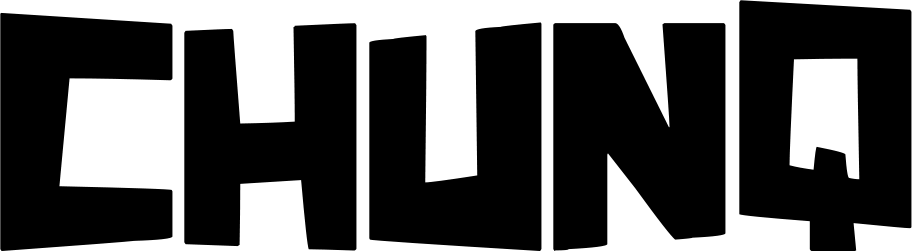
Chunq Font
Chunq is a cartoon font with bold and playful characters. It will make your writing more friendly and cool and make a more kid-friendly text. You can use it for any branding logo, product packaging, comic books, cartoon posters, informal texts, movie titles, and sports headlines. It is an all-caps title block font.